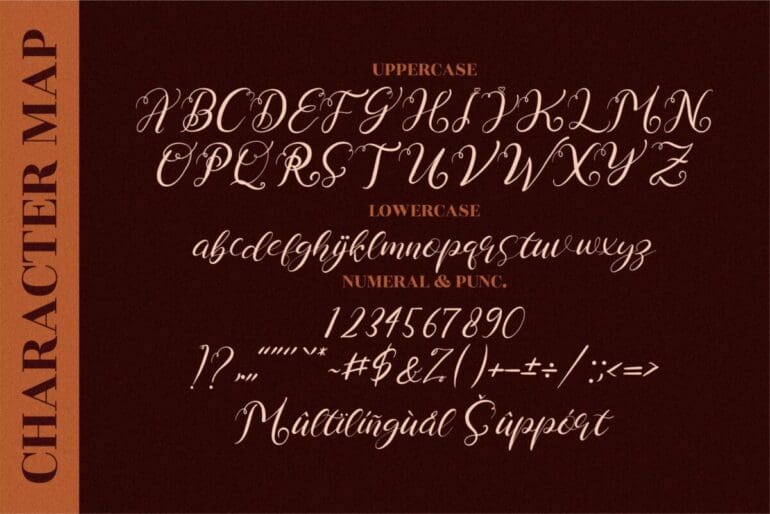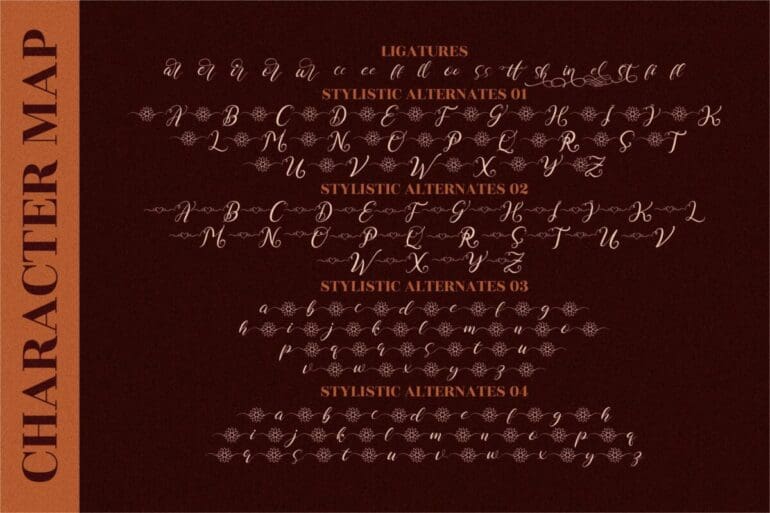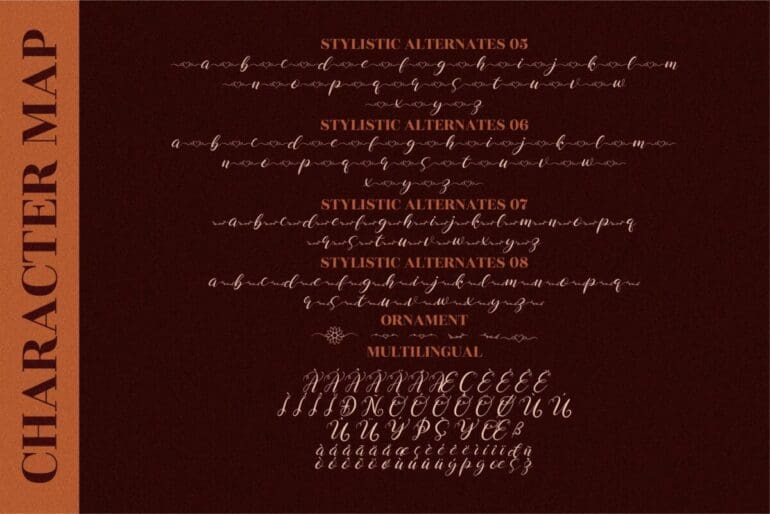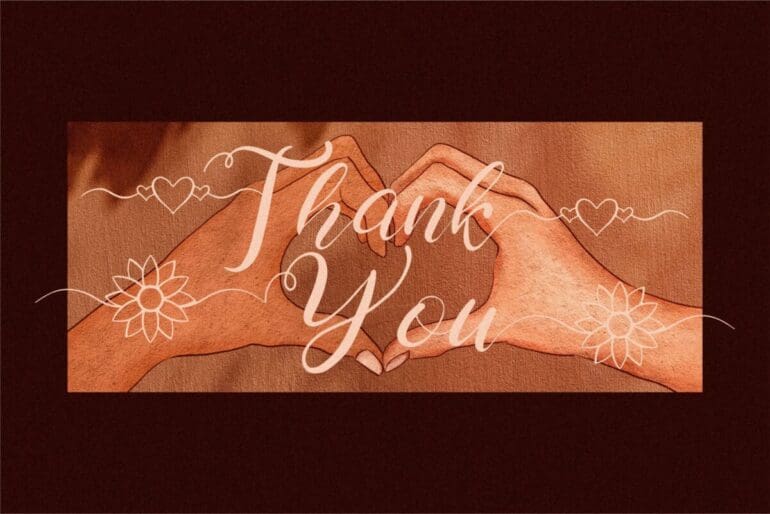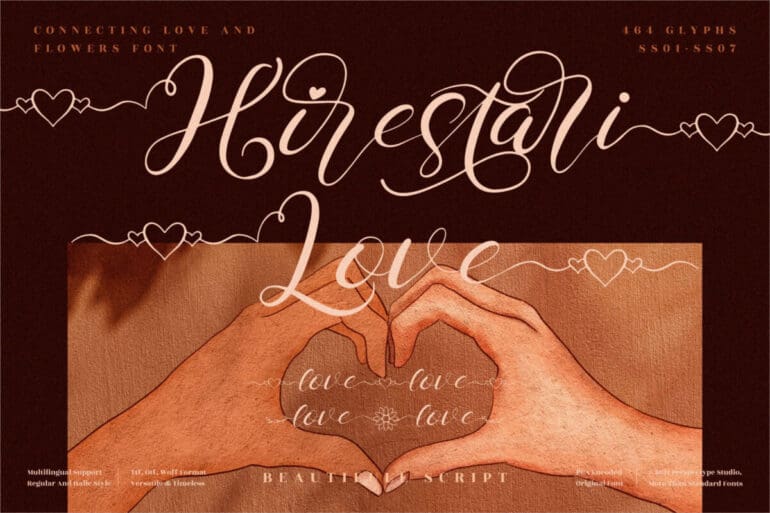
Hirestari Love Font
Hirestari Love is a beautiful and refined Script Font. It has a classy, elegant, and modern look that can be used for logos, branding, invitations, stationery, wedding designs, social media posts, and much more!